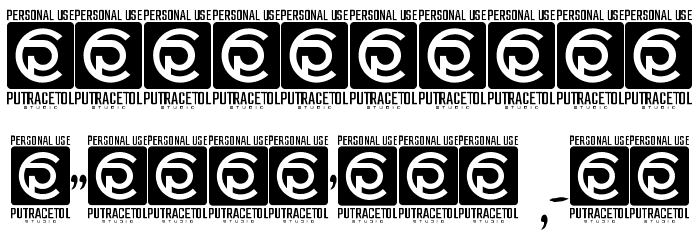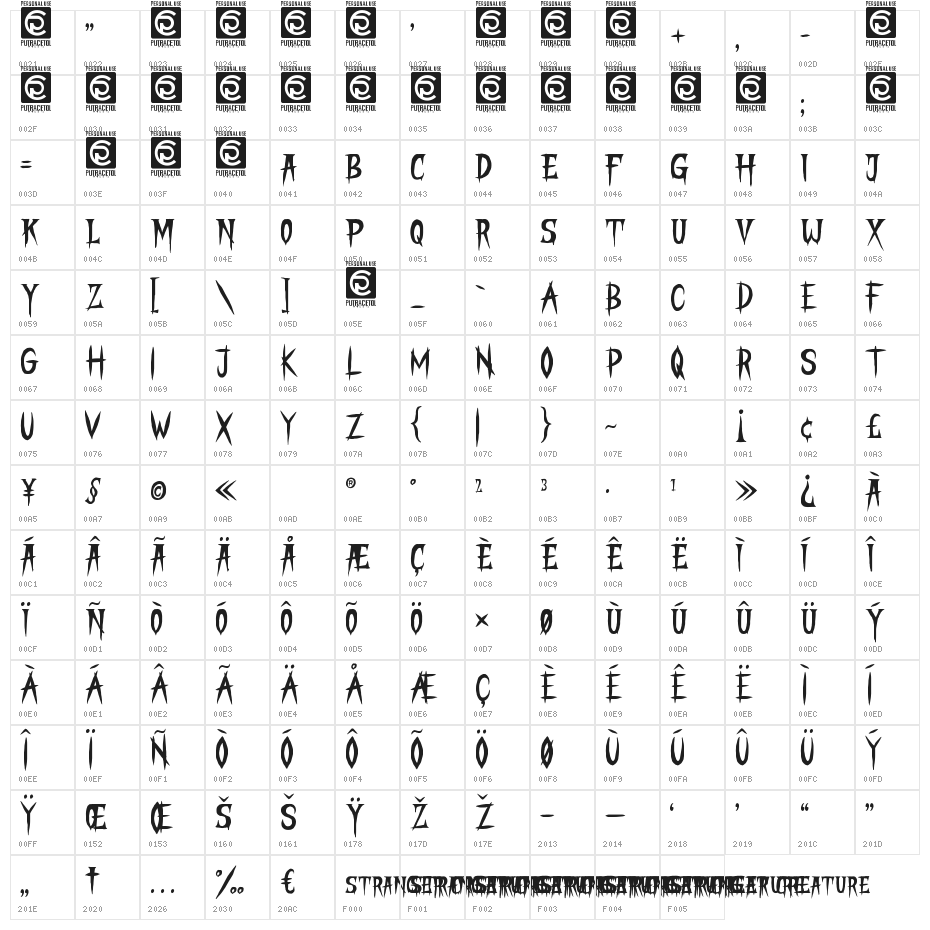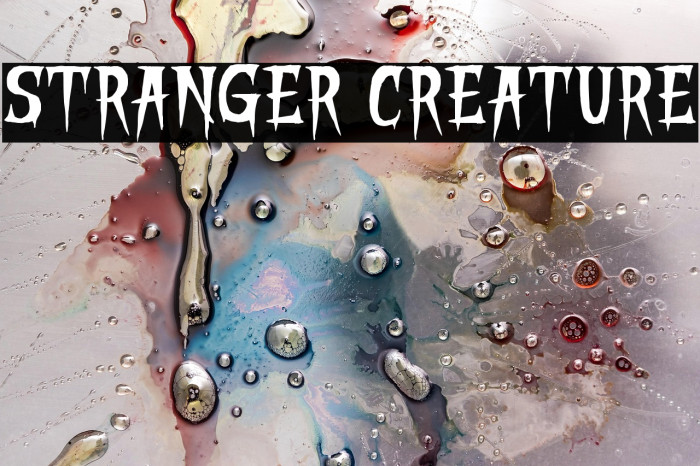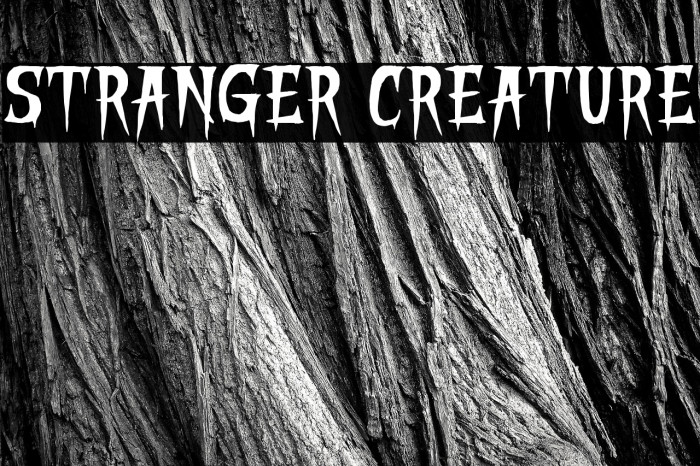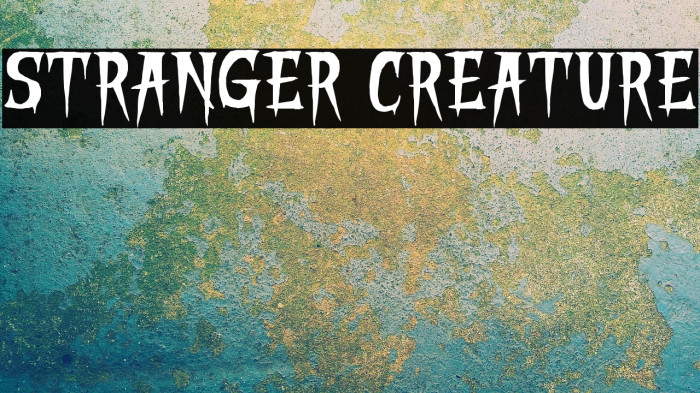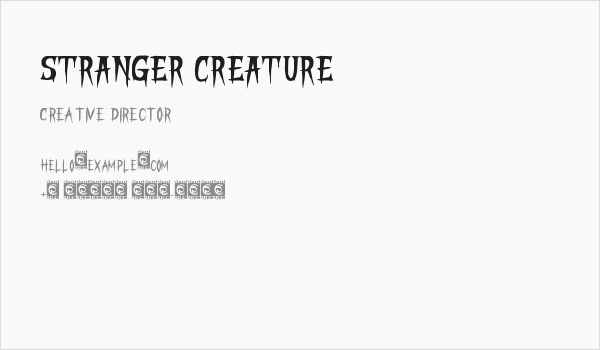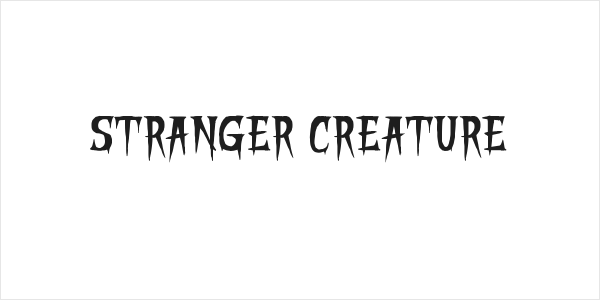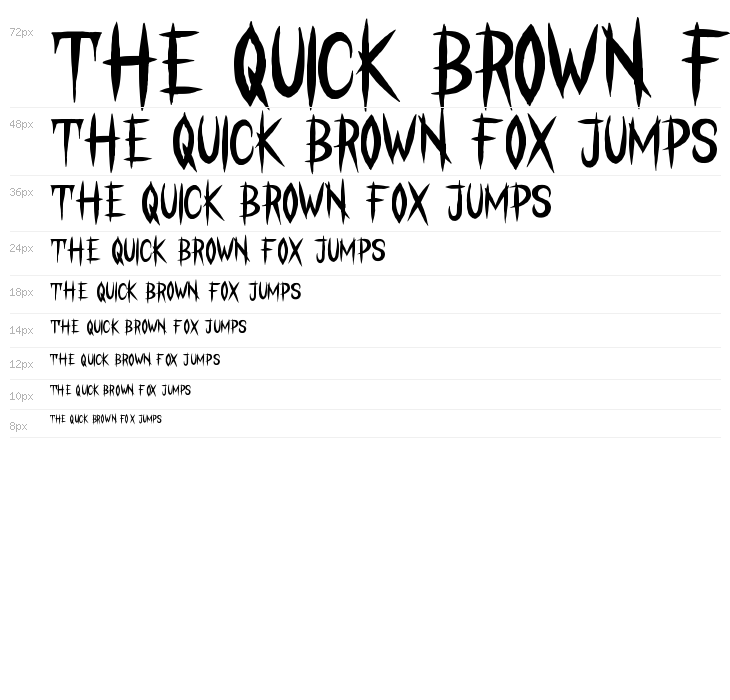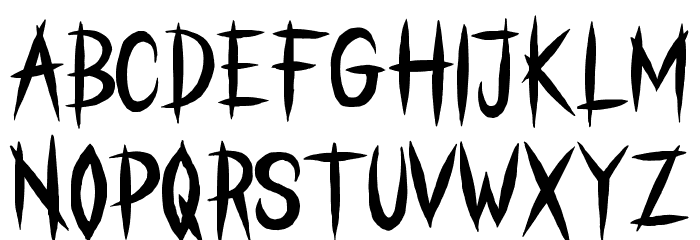
STRANGER CREATURE Font
STRANGER CREATURE Description
This font features a bold and edgy design, characterized by sharp, jagged edges and an irregular, almost chaotic appearance. The uppercase letters are tall and narrow, with exaggerated spikes and points that give them a menacing, creature-like quality. The lowercase letters maintain the same sharpness, creating a cohesive look throughout the alphabet. The numbers and special characters follow this same style, ensuring consistency. This font's unique aesthetic makes it perfect for projects that require a dramatic and attention-grabbing typeface.
| Proposed Projects | Ideal for horror-themed designs, movie posters, Halloween invitations, or any project needing a striking, edgy typeface. |